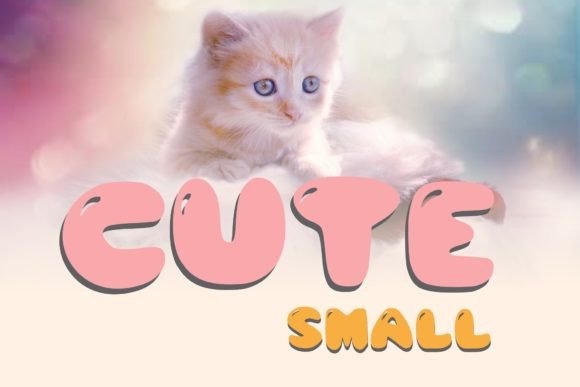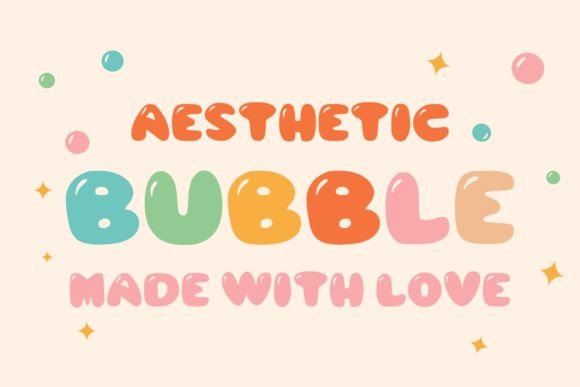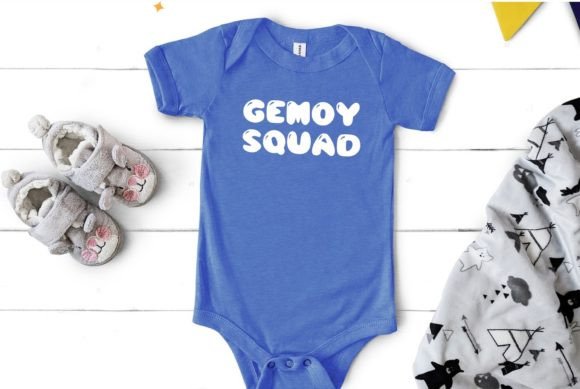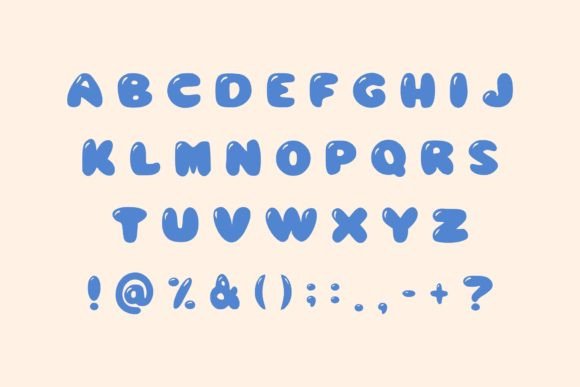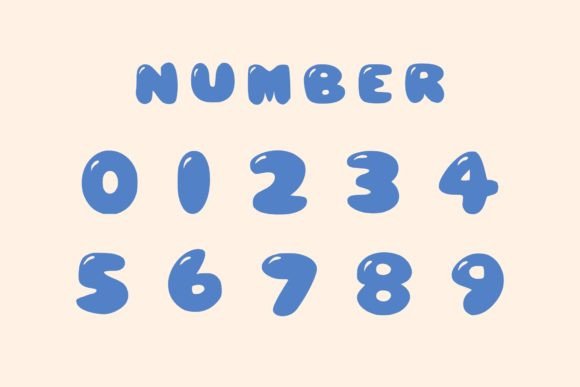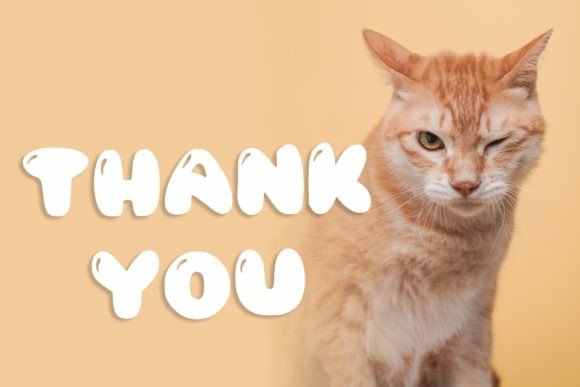
Introducing Gemoy Boba Font: The Perfect Choice for Whimsical Designs
Are you a designer or crafter looking for a font that captures the playful and youthful spirit of children? Look no further than Gemoy Boba Font! This adorable font is perfect for creating a wide range of designs, from t-shirts and tote bags to wedding invitations and logos. In this article, we’ll explore the features and benefits of Gemoy Boba Font, and show you how to make the most of this versatile and fun font.
What is Gemoy Boba Font?
Gemoy Boba Font is a unique and charming font designed to bring a touch of childhood magic to your designs. With its rounded edges and bouncy curves, this font is sure to delight both kids and adults alike. Whether you’re creating a design for a children’s party, a youth-oriented brand, or simply want to add a playful touch to your project, Gemoy Boba Font is the perfect choice.
Features of Gemoy Boba Font
So, what makes Gemoy Boba Font so special? Here are just a few of its key features:
- Playful and whimsical design: Gemoy Boba Font has a fun and carefree vibe that’s perfect for designs that need to appeal to kids and families.
- Rounded edges and curves: The font’s rounded edges and curves give it a soft and friendly feel that’s hard to resist.
- Highly versatile: Gemoy Boba Font can be used for a wide range of designs, from t-shirts and tote bags to wedding invitations and logos.
- Easy to read: Despite its playful design, Gemoy Boba Font is still easy to read, making it perfect for quotes, captions, and other text-based designs.
Uses for Gemoy Boba Font
So, what can you create with Gemoy Boba Font? The possibilities are endless! Here are a few ideas to get you started:
- T-shirts and hoodies: Create fun and playful designs for kids and adults alike with Gemoy Boba Font.
- Tote bags and accessories: Add a touch of whimsy to tote bags, hats, and other accessories with this adorable font.
- Wedding invitations and cards: Use Gemoy Boba Font to create unique and playful wedding invitations, thank-you cards, and other stationery.
- Logos and branding: Create a fun and youthful brand identity with Gemoy Boba Font.
- Stickers and decals: Design fun and colorful stickers and decals with Gemoy Boba Font.
Tips for Using Gemoy Boba Font
To get the most out of Gemoy Boba Font, here are a few tips to keep in mind:
- Experiment with colors: Gemoy Boba Font looks great in a wide range of colors, so don’t be afraid to get creative!
- Mix and match with other fonts: Try pairing Gemoy Boba Font with other fonts to create a unique and eye-catching design.
- Use it for headlines and titles: Gemoy Boba Font is perfect for headlines and titles, where its playful design can really shine.
- Don’t be afraid to get creative: Gemoy Boba Font is a versatile font that can be used in many different ways, so don’t be afraid to try new things!
Gemoy Boba Font is a fun and versatile font that’s perfect for designers and crafters who want to add a touch of childhood magic to their designs. With its playful and whimsical design, rounded edges and curves, and highly versatile nature, this font is sure to delight both kids and adults alike. Whether you’re creating t-shirts, tote bags, wedding invitations, or logos, Gemoy Boba Font is the perfect choice. So why wait? Download Gemoy Boba Font today and start creating your own whimsical designs!